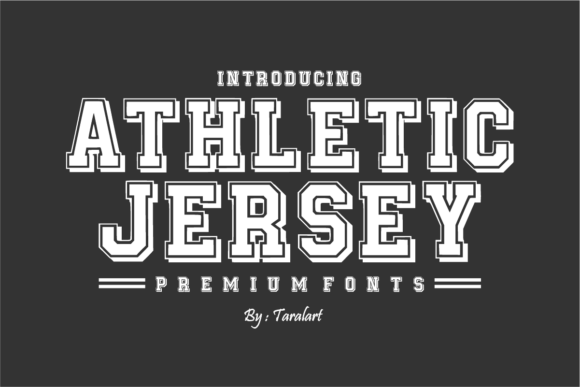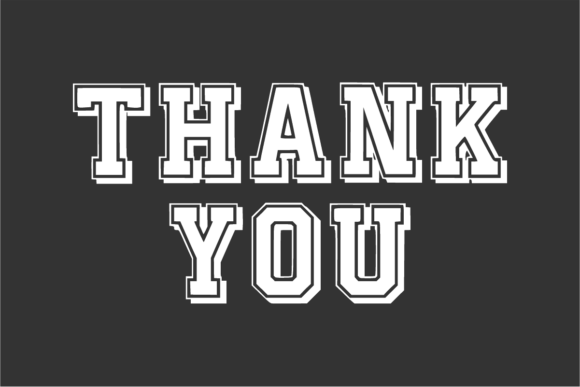
Athletic Jersey Font
ATHLETIC JERSEY – Premium Sports Display Font
Step into the world of bold design with Athletic Jersey, a strong and confident typeface inspired by classic varsity and collegiate lettering. This font brings the energy of the game straight to your designs — perfect for sports branding, team logos, apparel, posters, and bold typography layouts.
Every letter is crafted to balance power and precision, featuring clean lines, sharp edges, and a classic outline style that captures the look of authentic sports uniforms. Whether you’re designing for football, baseball, or a vintage athletic brand, this font delivers that unmistakable varsity aesthetic.
Use it for jersey numbers, team names, headlines, or motivational quotes — anywhere you want a standout, championship feel. Combine uppercase letters for bold impact, or mix styles for a dynamic, layered effect.
Bring your ideas to life with a font that embodies strength, pride, and timeless athletic spirit.